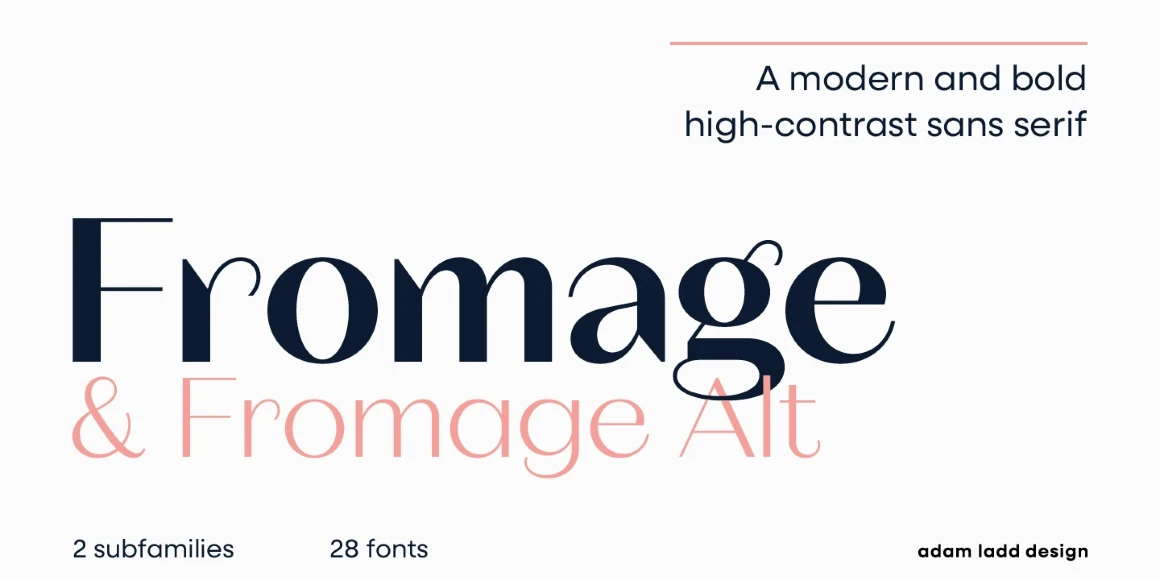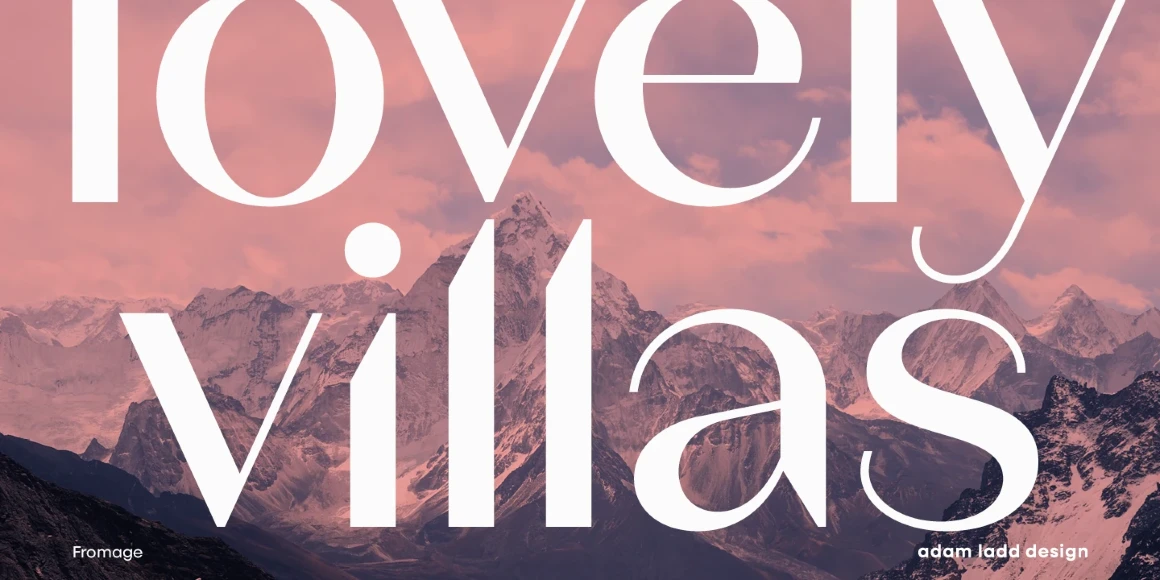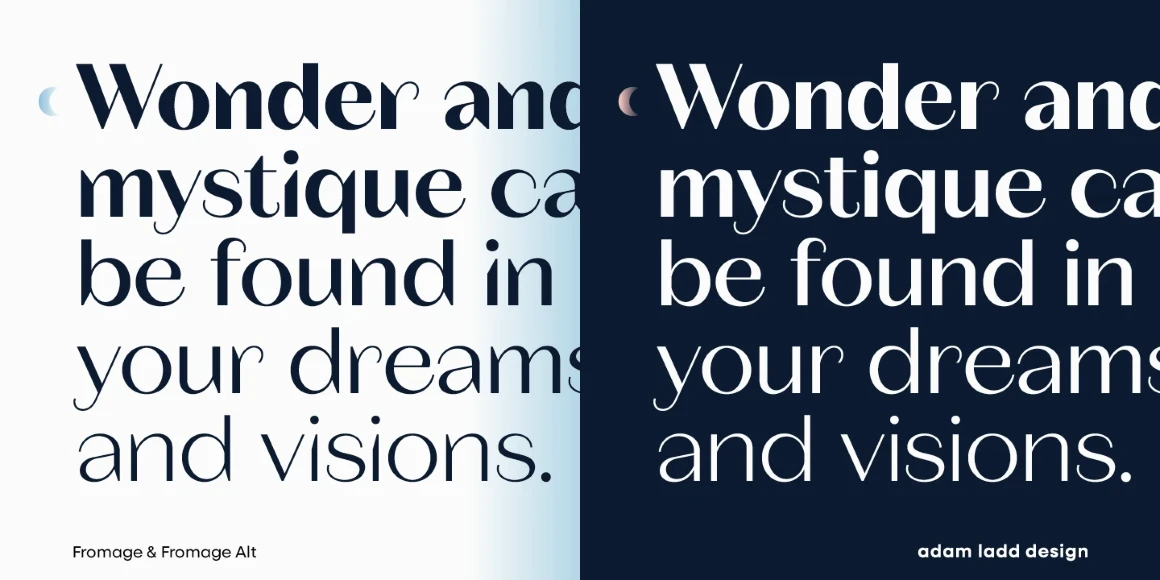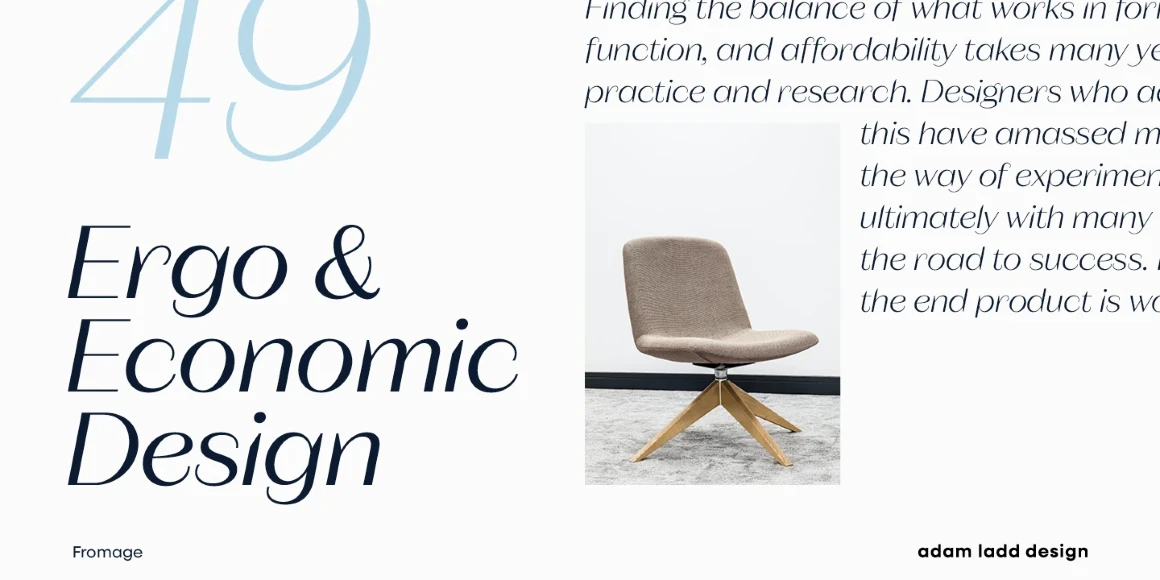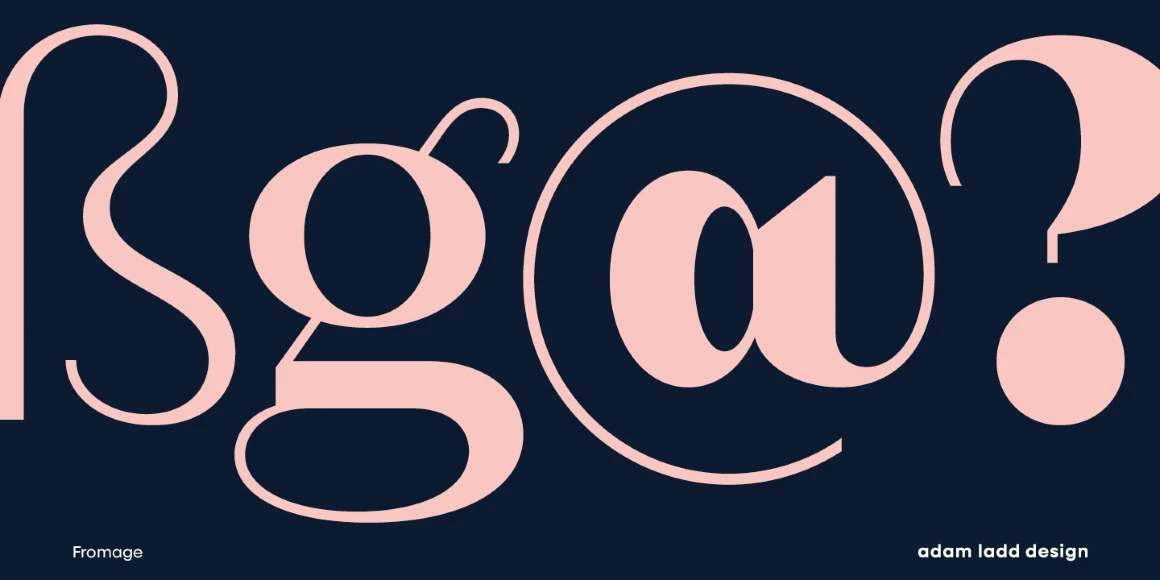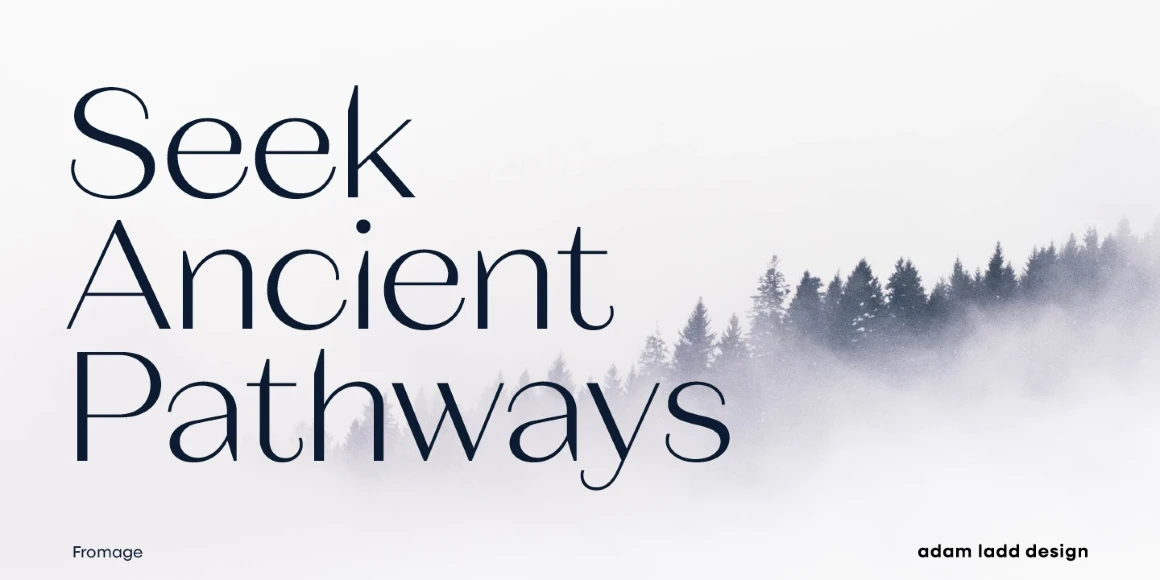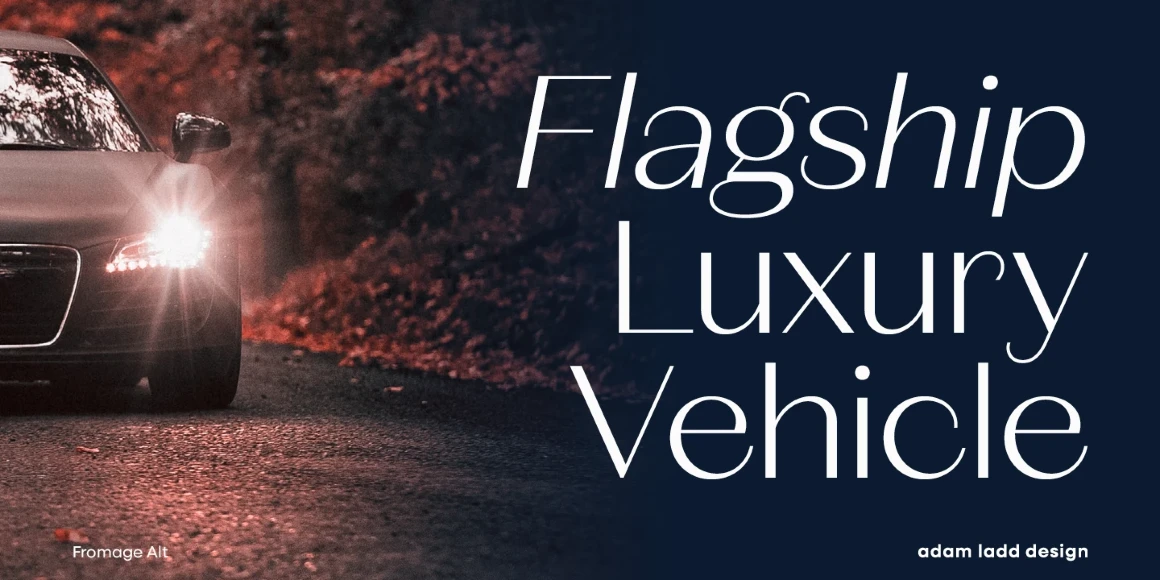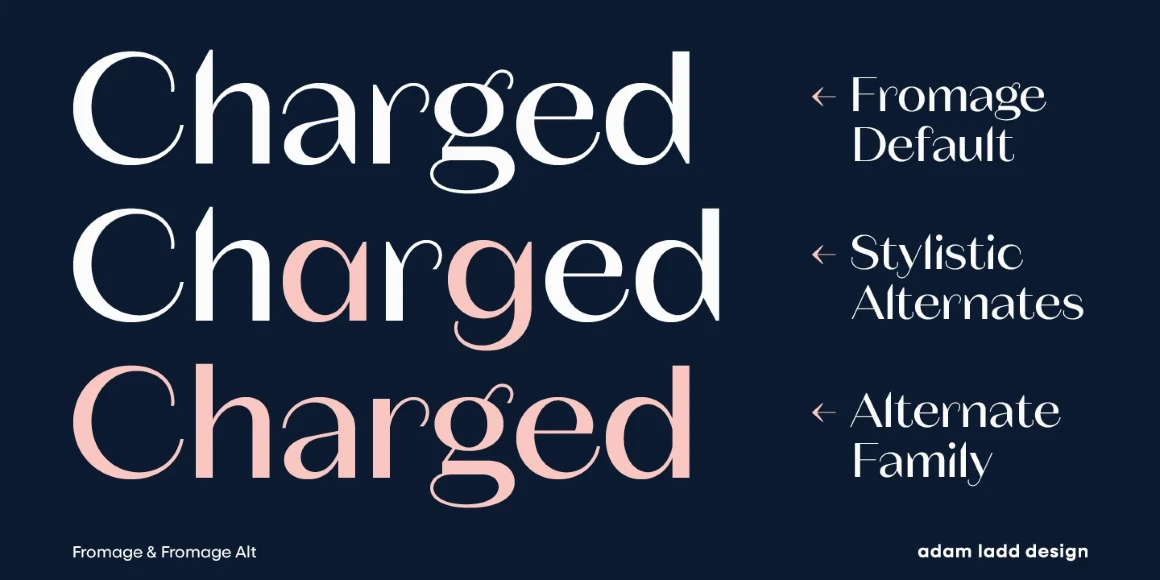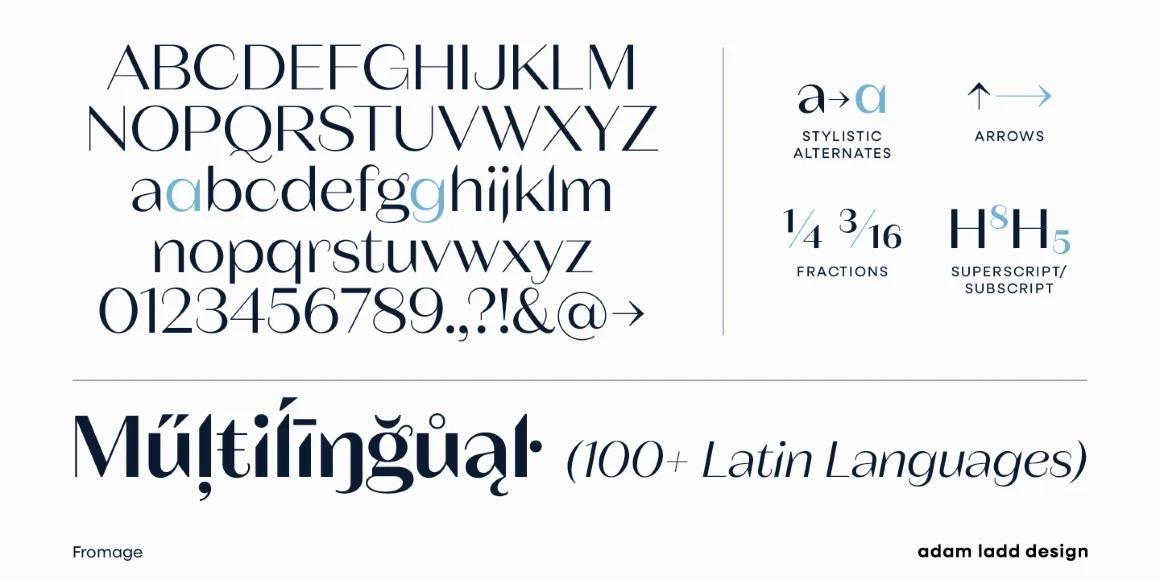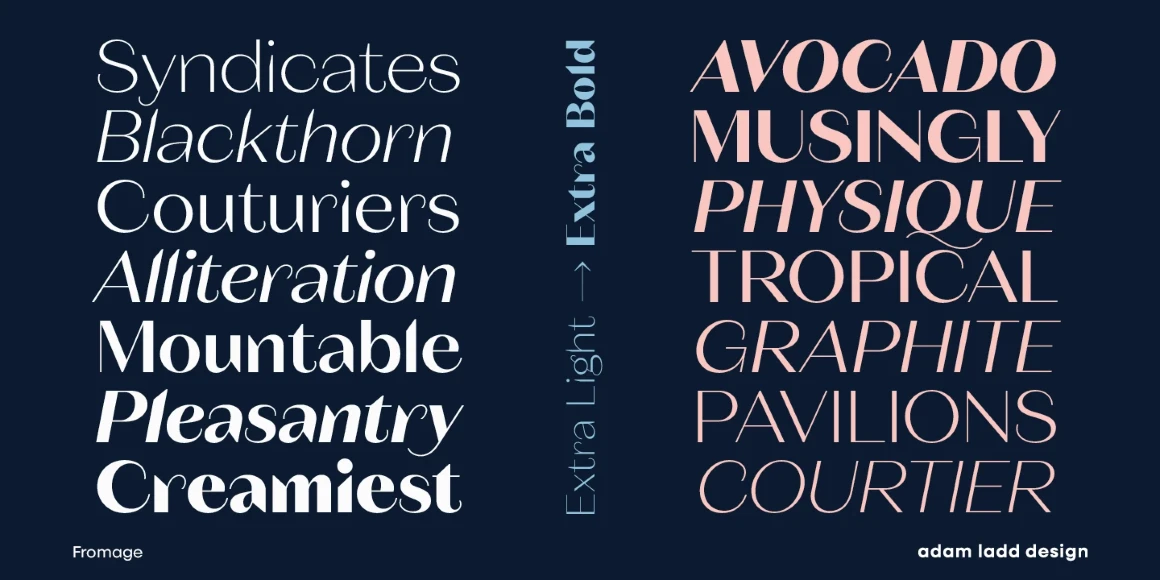
Fromage
By Adam Ladd
Fromage and Fromage Alt — now with italics — are modern, high-contrast sans serif font families balancing the unexpected with restraint. Both have a generous x-height and round forms, but Fromage uses angled and elongated terminals, and Fromage Alt features flat terminals, making it more stately. The typefaces altogether offer flexibility and legibility for diverse applications, and an elegant air with a dynamic rhythm makes them an obvious choice for fashion, beauty, and luxury branding.